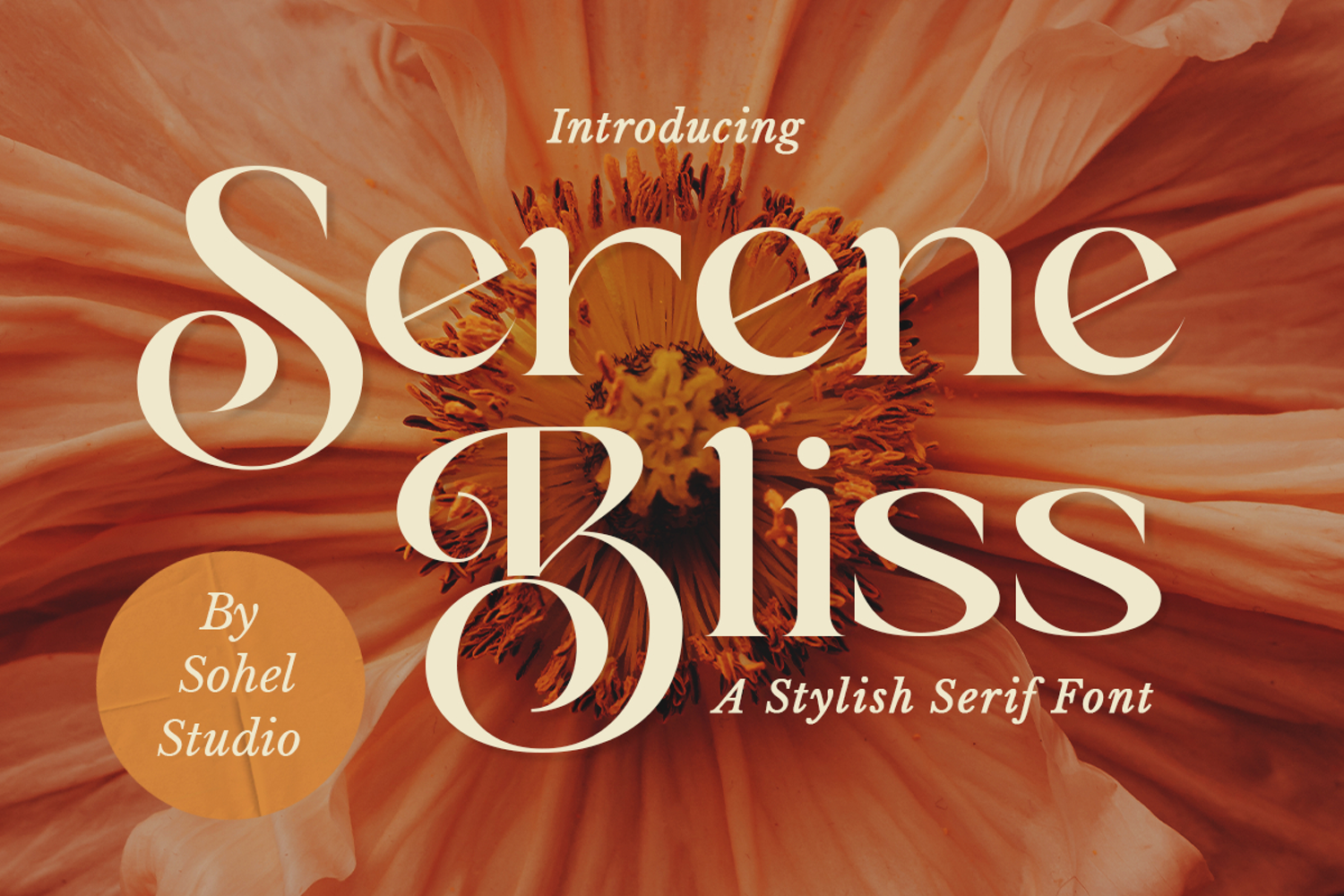
Serene Bliss - Modern Branding Font
Serene Bliss is a refined serif typeface that balances elegance and character with every stroke. Its graceful curves and high-contrast details evoke a sense of sophistication—ideal for editorial layouts, brand identities, packaging, and high-end fashion campaigns.
Designed to shine in large sizes, Serene Bliss features sharp terminals, distinctive swashes, and a strong typographic voice. Whether you're crafting magazine titles, lookbooks, or bold logotypes, this display serif delivers both luxury and modern appeal.
Pair it with minimal layouts or expressive photography to create striking visual compositions.
Serene Bliss Features:
• Alternates & Ligatures
• Accented characters